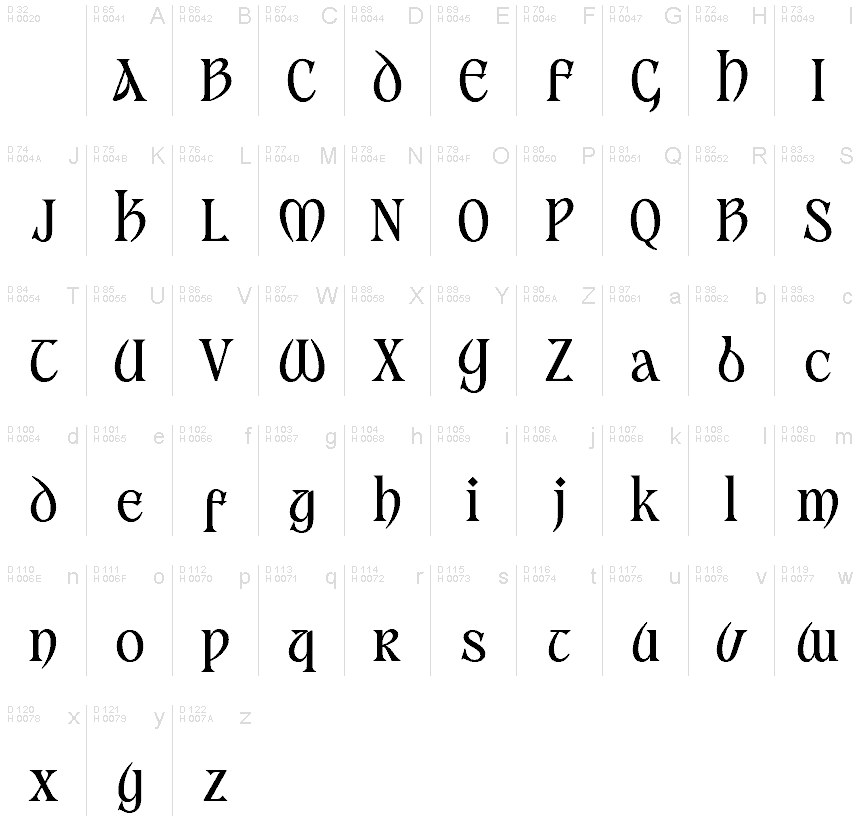
CS Loman Regular Demo
CS Loman font by Craft Supply Co. captures an elegant and classic look with this fine serif font. Its carefully placed serifs add a sophisticated touch that transforms each character from overly simple to elegant. The author’s hard work pours out of every character in this font that can present an organized, formal atmosphere great for numerous uses.
Bring balance and smooth reading to your designs whether they’re posters, tickets, online ads, magazine covers, movie titles or web pages. CS Loman is equally suitable for body text as well as titles/headers in books, magazines, blogs and other publications. Also try it with invitations packaging – tremendous results are guaranteed!